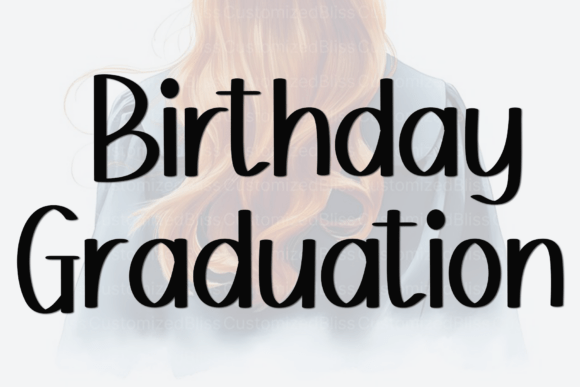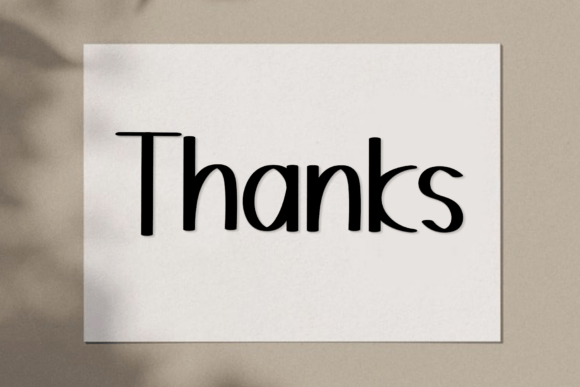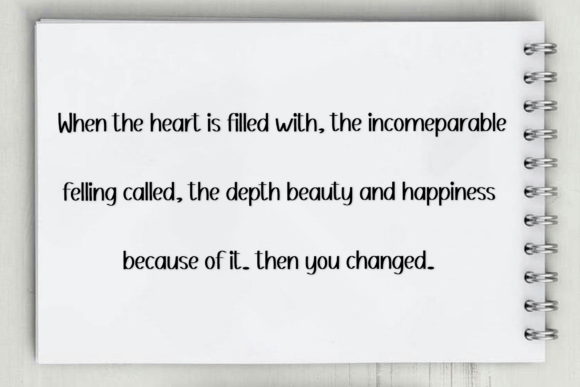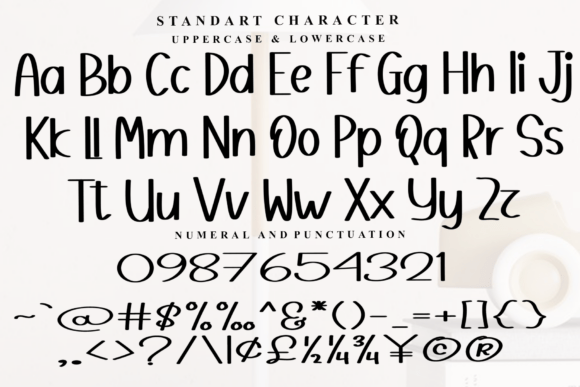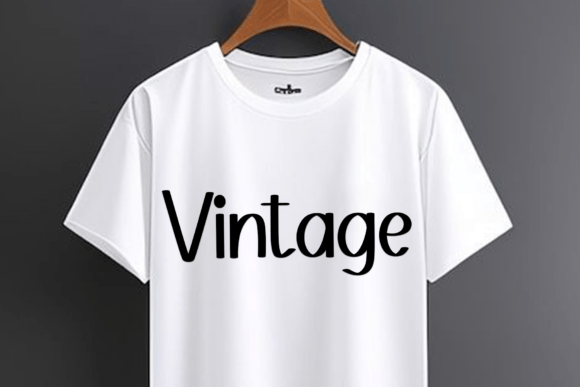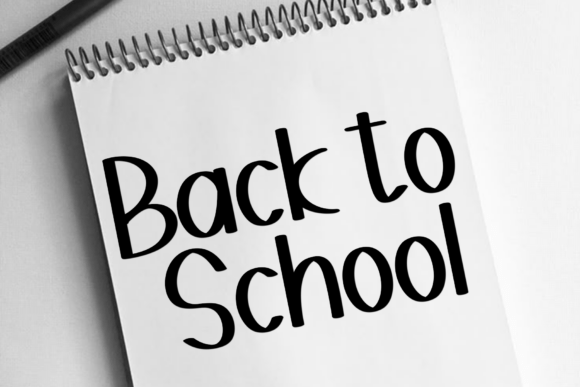
Introduction to Happy Jasmine Font
As a designer, there’s nothing quite like the thrill of discovering a new font that perfectly captures the essence of your creative vision. I still remember the moment I stumbled upon the Happy Jasmine Font – it was like a breath of fresh air in the world of typography. The soft, unique strokes and distinctive character of this font had me hooked from the very start.
But what makes Happy Jasmine Font truly special is its versatility and compatibility with a wide range of applications, including Windows and open-source platforms. Whether you’re working on a high-quality design project, crafting a beautiful invitation, or simply looking for a free download to enhance your creative project, this natural font style is sure to deliver.
With its transparent background and effortless charm, Happy Jasmine Font has become an invaluable design resource for creatives across various artistic fields. In this article, we’ll delve deeper into the world of Happy Jasmine Font, exploring its unique features, applications, and why it’s a valuable addition to any designer’s toolkit.
Key Features of Happy Jasmine Font
- High-quality design with intricate details, perfect for creative projects
- Comes with a transparent background, allowing for easy customization
- High-resolution design, suitable for print and digital applications
- Unique, elegant script font ideal for wedding invitations, greeting cards, and other creative endeavors
Honest Review: Happy Jasmine Font
I recently had the chance to work with the Happy Jasmine Font, and I must say it’s been a great addition to my design resource library. This beautiful, high-quality font is perfect for any creative project that requires a touch of elegance and sophistication.
One of the things that stands out about the Happy Jasmine Font is its transparent background, which makes it incredibly versatile and easy to use. Whether you’re designing a logo, a website, or a social media graphic, this font is sure to add a touch of class.
Here are some things that work well about the Happy Jasmine Font:
- ✨ Transparent background for easy customization
That being said, there are a few limitations to consider:
- ⚠️ Limited character set, which may not be suitable for long-form text
- ⚠️ Not as extensive a font family as some other options
Overall, I’m really impressed with the Happy Jasmine Font, and I think it’s a great addition to any designer’s toolkit. Whether you’re working on a personal project or a client project, this font is sure to deliver.
Transparent Background and Customization
The Happy Jasmine Font features a transparent background, making it easy to use in designs with complex backgrounds. To get the most out of it, try using it with a transparent background in your design software.
Tips for Getting the Most Out of Happy Jasmine Font
Use the Happy Jasmine Font in creative projects such as invitations, posters, and social media graphics. Experiment with different font sizes, colors, and combinations to create unique and eye-catching designs.
The Happy Jasmine Font is perfect for:
- Posters and flyers for events and promotions
Does Happy Jasmine Font have a transparent background?
Yes, Happy Jasmine Font has a transparent background, making it easy to layer over other design elements. This feature allows for greater flexibility and control when designing with our font.